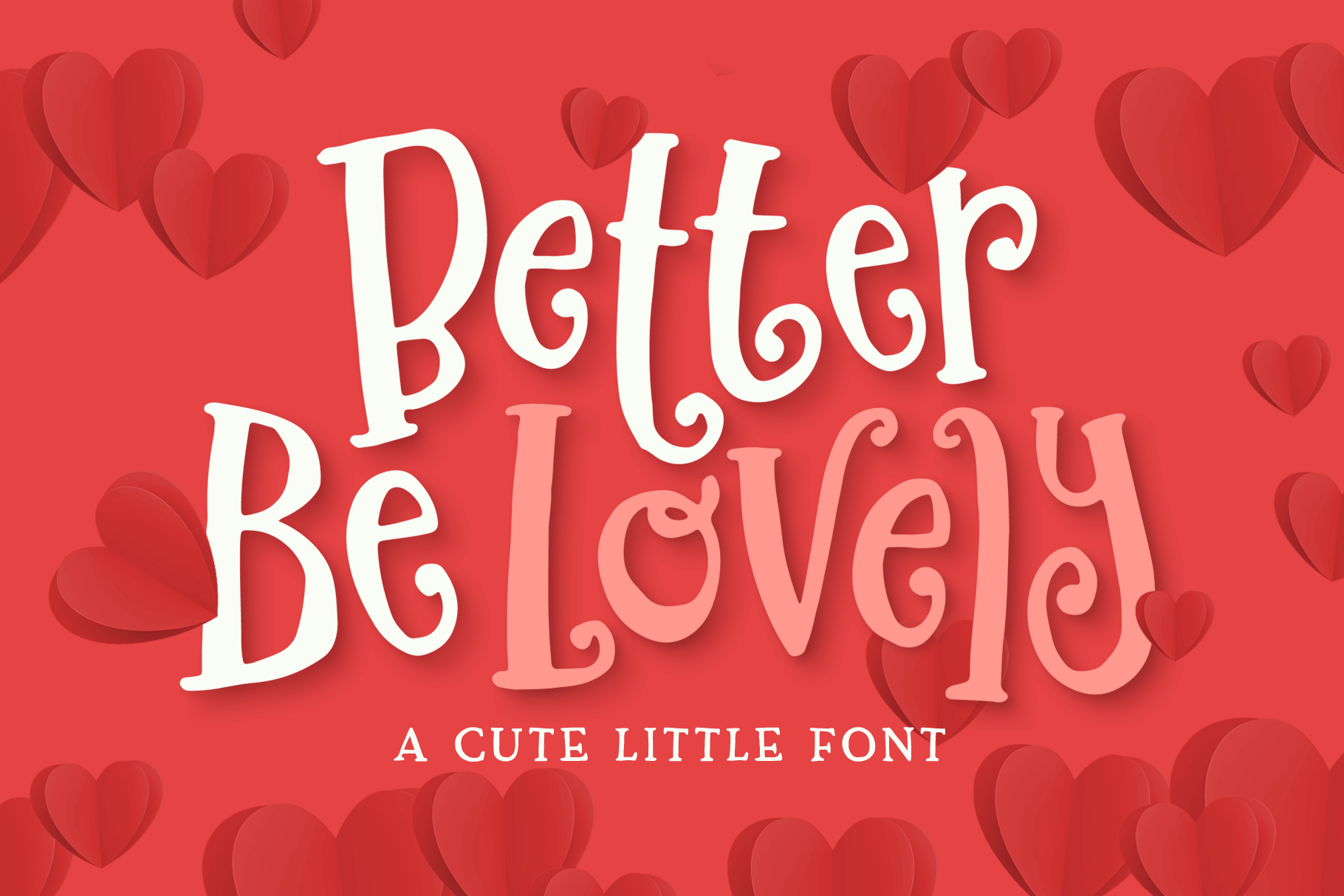
Better Be Lovely Font
Better Be Lovely is a cute little font that comes with an alternate version to mix and match letters. It has a sweet and romantic feel that is perfect for birth announcements, valentine's cards, wedding invites, and so much more!